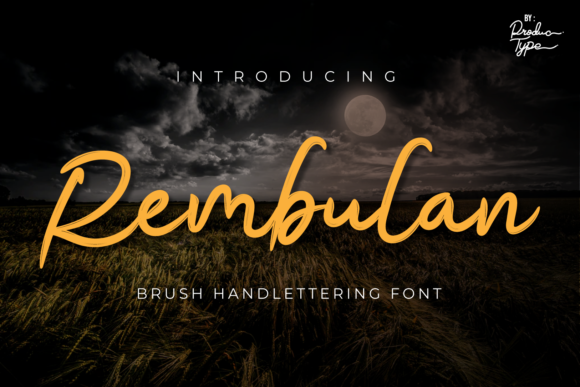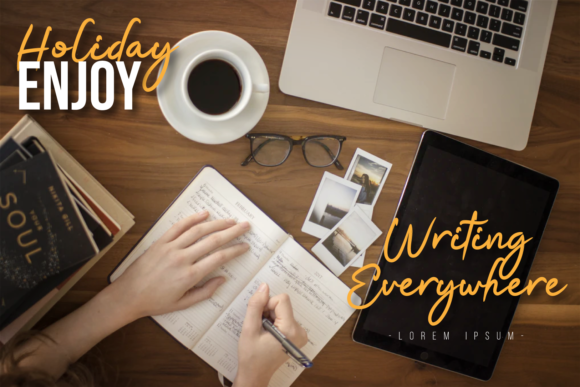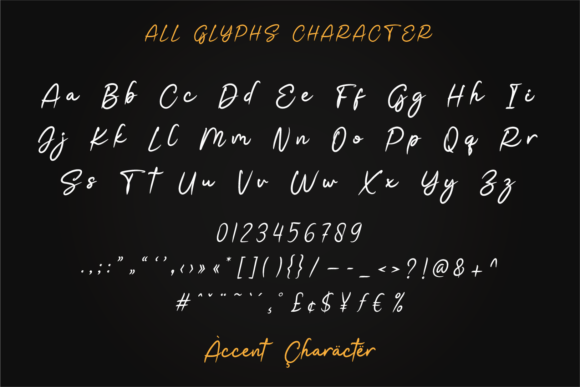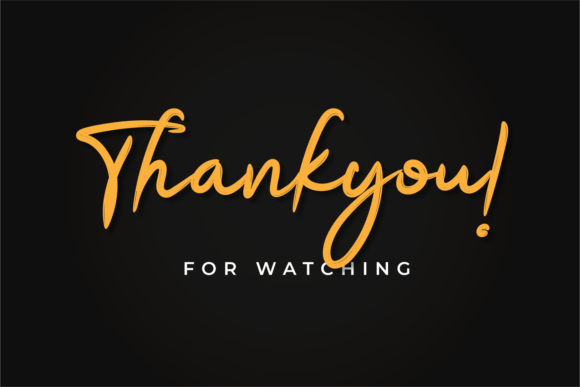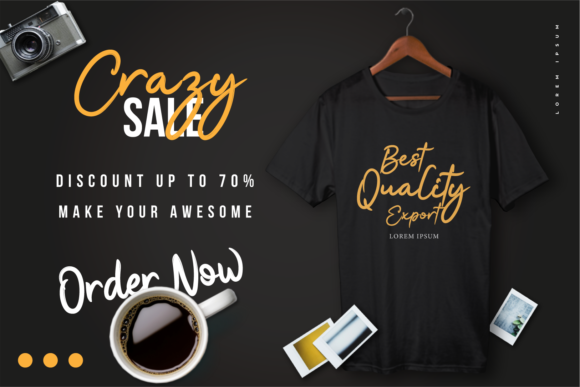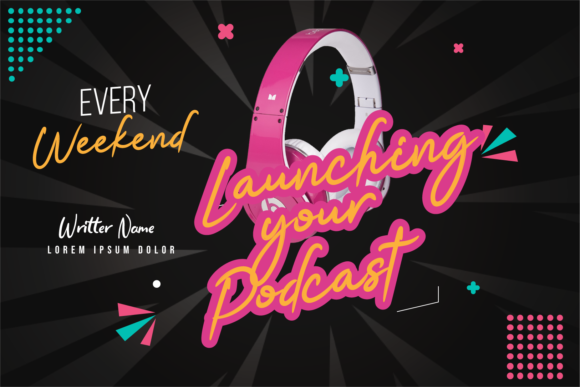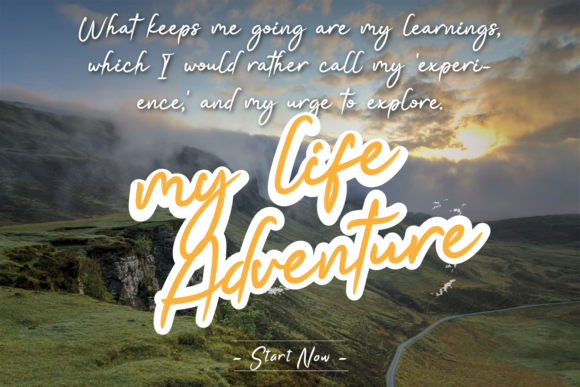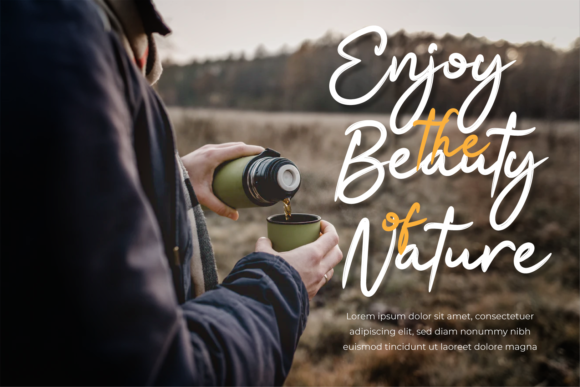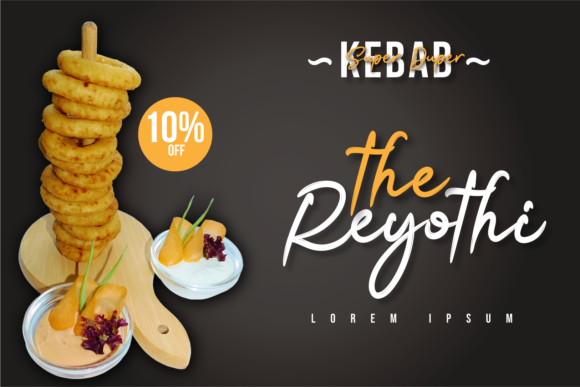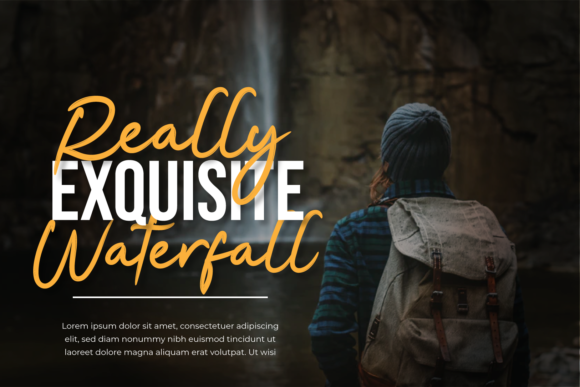
Rembulan Font
About Rembulan Font
Introducing Rembulan: The Sweet, Whimsical, and Flowing Brushed Handwritten Font
Experience the enchantment of Rembulan, a font that effortlessly combines sweetness, whimsy, and flowing elegance with its brushed handwritten allure. With its trendy style, Rembulan is the perfect choice to enhance your project ideas, adding a touch of magic to your designs.
Rembulan’s sweet and whimsical appeal brings a sense of joy and playfulness to your projects. Its flowing letterforms create an air of grace and beauty, allowing your text to dance across the canvas with an enchanting charm.
As a brushed handwritten font, Rembulan carries an authentic and handcrafted essence. Each stroke embodies the artistry of a skilled hand, making your designs feel truly special and captivating.
The font’s trendy style adds a contemporary edge to your creations. Whether you’re working on invitations, logos, or artistic displays, Rembulan fits seamlessly, infusing your project ideas with a touch of modern elegance.
Embrace the flowing allure of Rembulan as you embark on your creative journey. Let it be the inspiration that breathes life into your designs, adding a whimsical and sweet touch to every piece of art you create.
As you explore the possibilities of Rembulan, you’ll find it to be a font that elevates your project ideas to new heights. Its sweet, whimsical, and flowing brushed handwritten beauty enhances your work, ensuring that your creations are adorned with a touch of magic and wonder.
So, let Rembulan be the font that enhances your creativity. Embrace its trendy style, and watch as your projects come to life with a touch of grace and allure. With Rembulan as your go-to font, your designs will shine with whimsy, captivate your audience, and leave a lasting impression. Embrace the sweetness of Rembulan and create designs that are truly magical and inspiring!